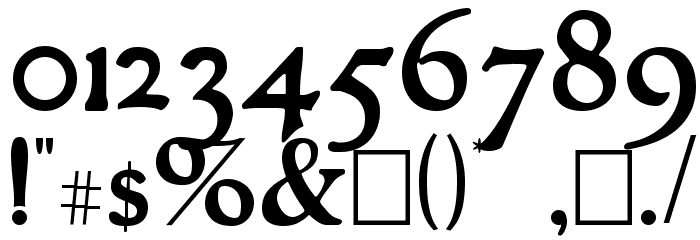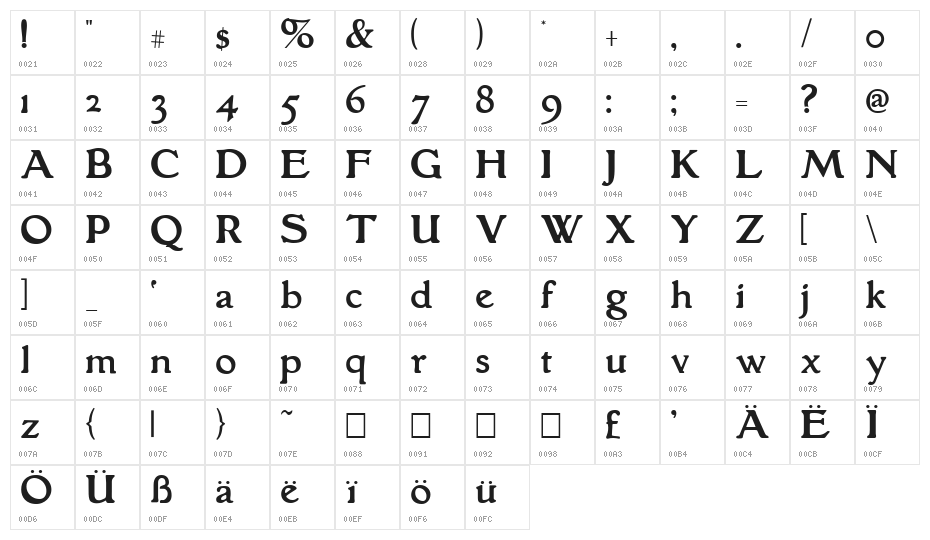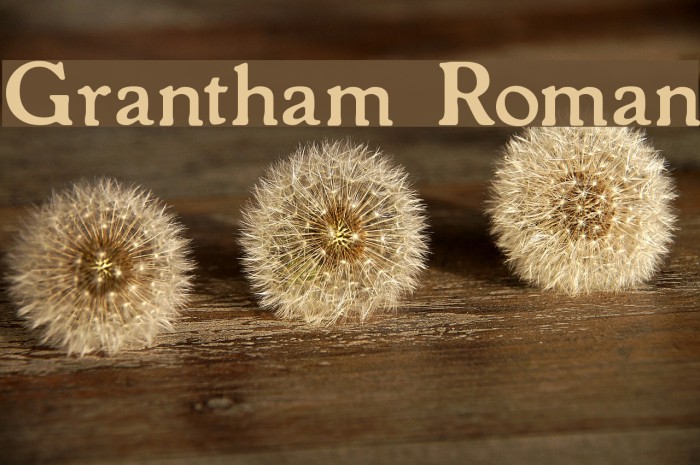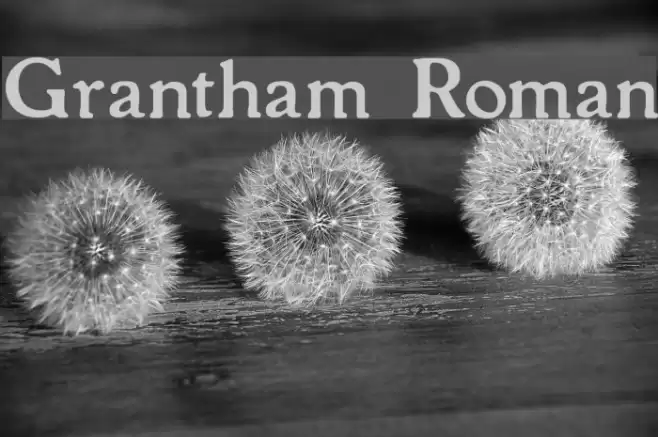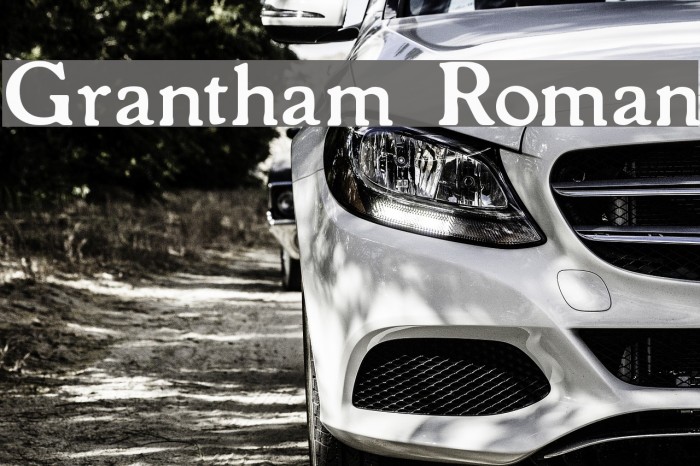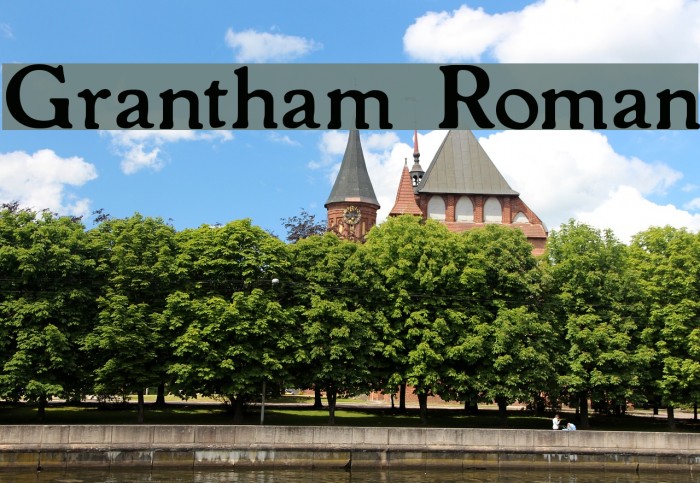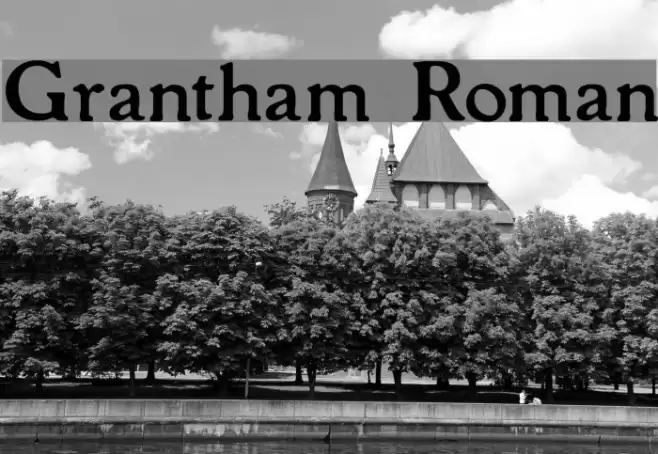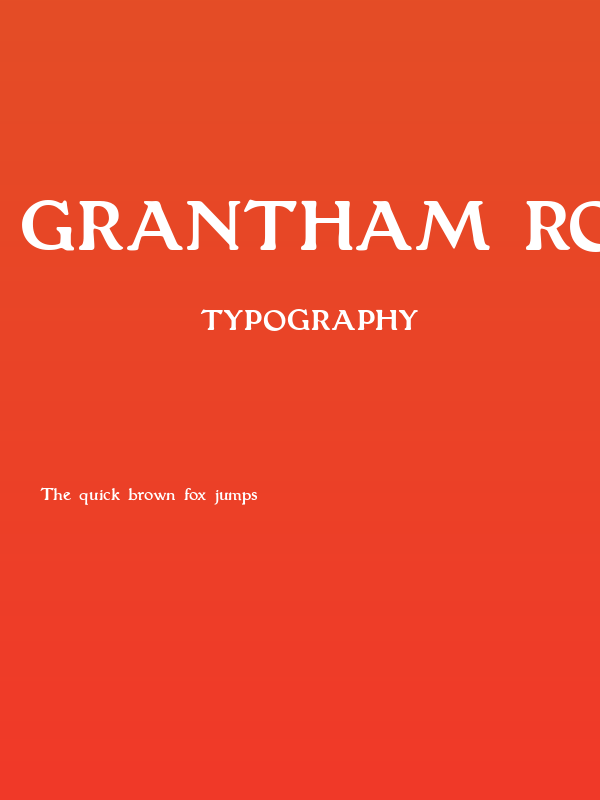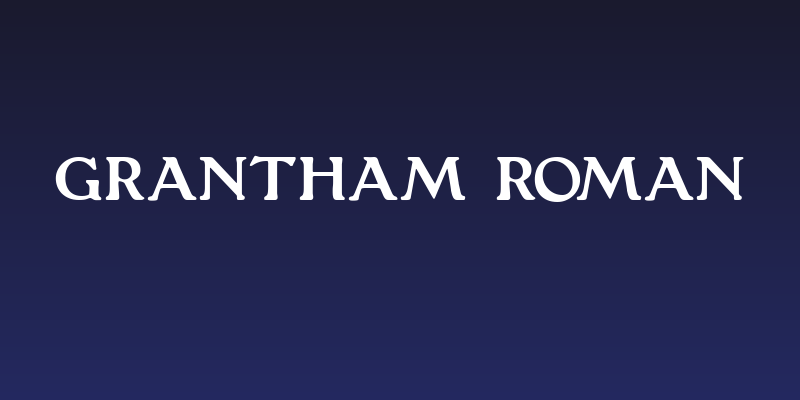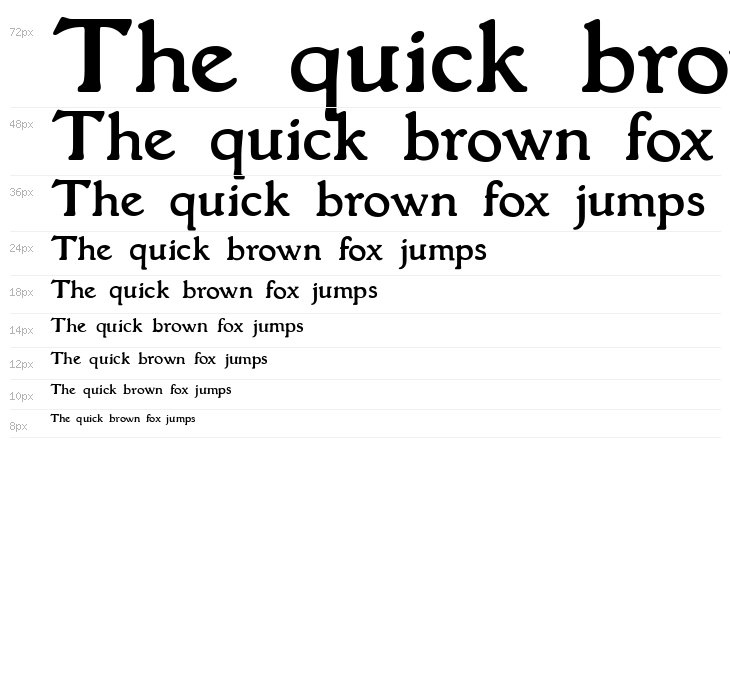
Grantham Roman Font
Grantham Roman Description
This font exhibits a classic serif style with a touch of elegance and sophistication. The uppercase letters are bold and commanding, featuring distinct serifs that add a traditional feel. The lowercase letters maintain a consistent style, with smooth curves and a balanced weight that ensures readability. Numbers are well-proportioned, aligning with the overall aesthetic of the font. Special characters are thoughtfully designed, complementing the alphabetic characters. This font's design is suitable for projects that require a formal and timeless appearance.